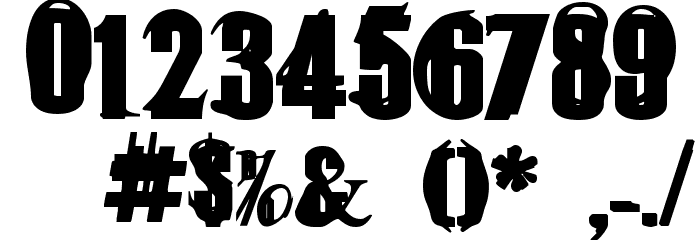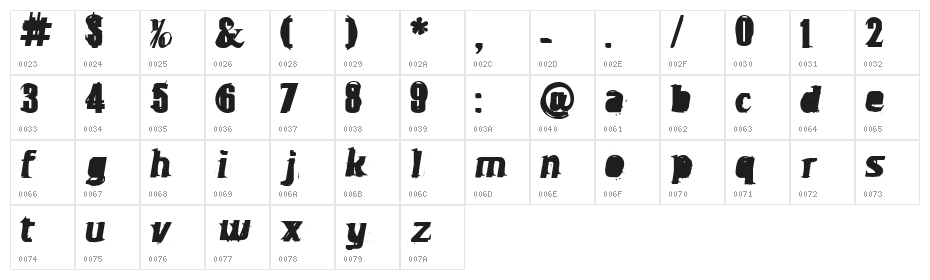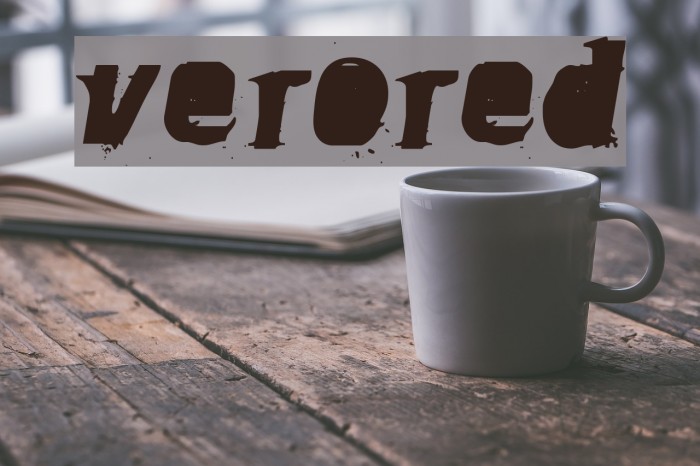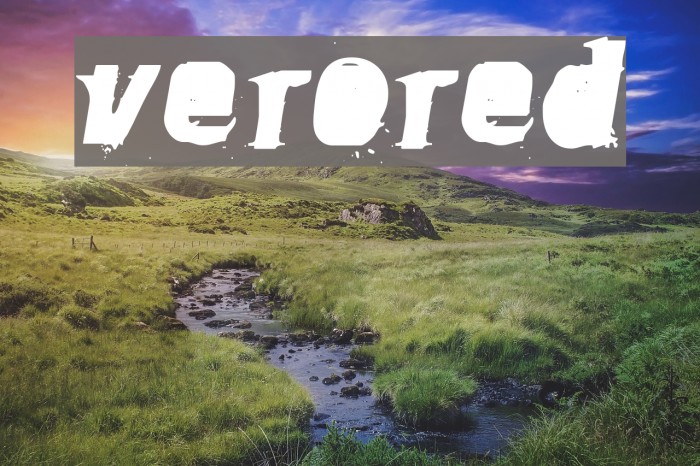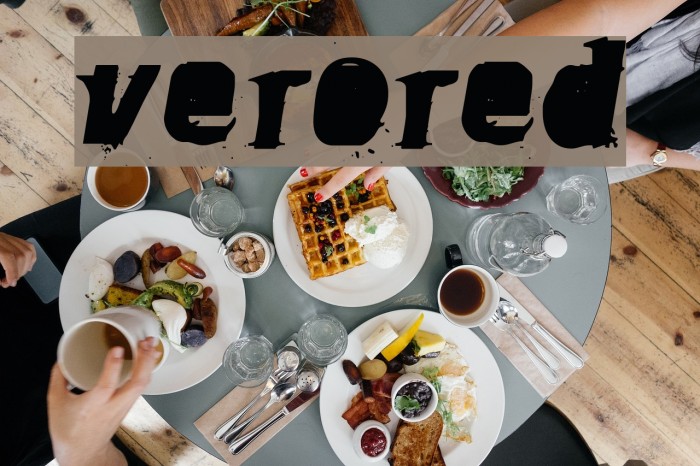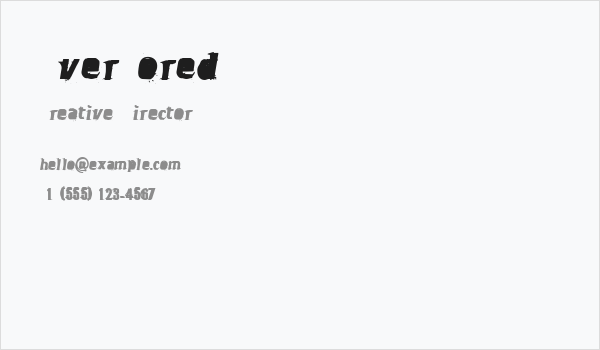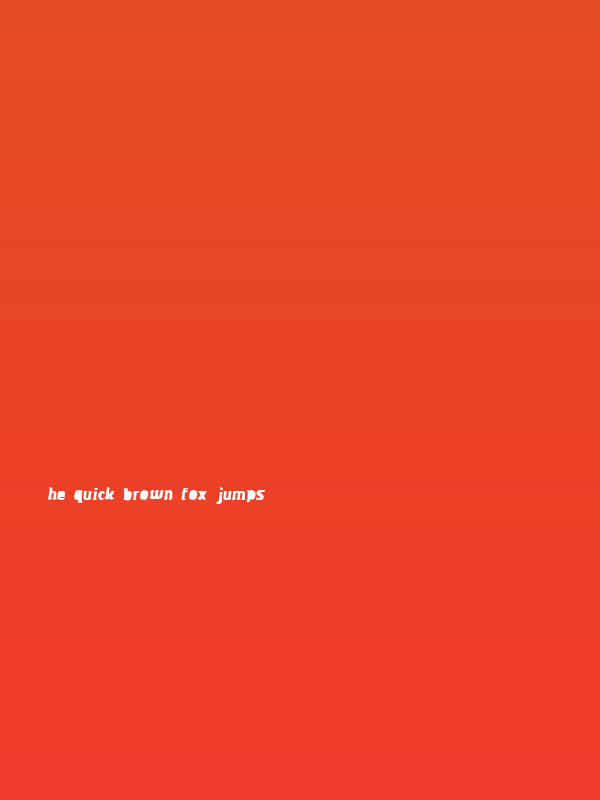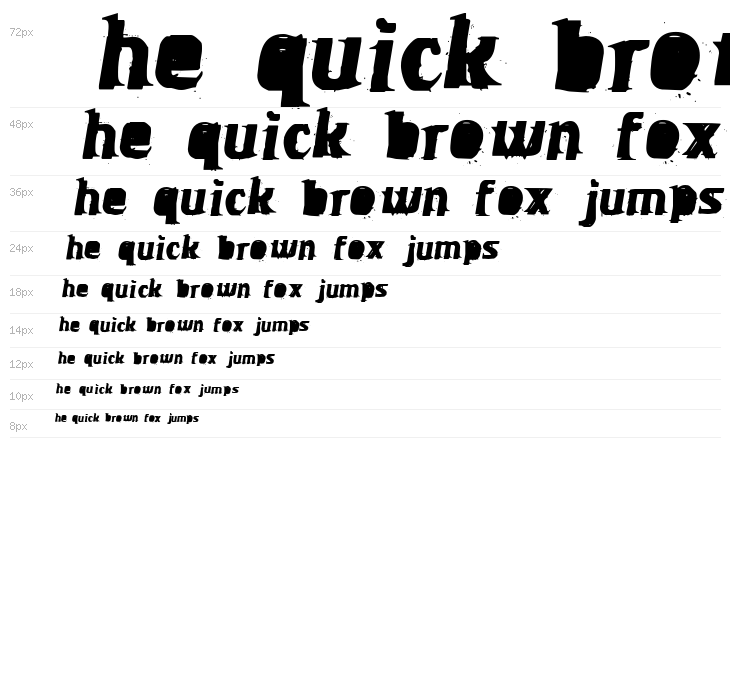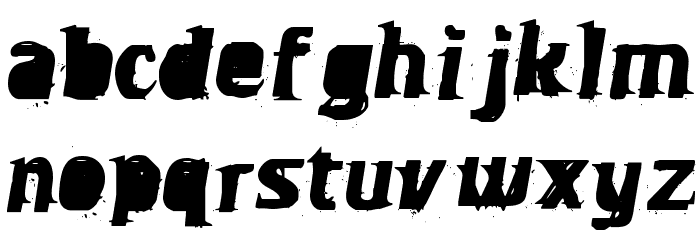
OverBored Font
OverBored Description
This font features a bold and distressed style, characterized by its rough, textured edges and uneven strokes. The uppercase and lowercase letters maintain a consistent boldness, giving the font a strong presence. The numbers and special characters follow the same rugged aesthetic, making them stand out with their unique, grunge-like appearance. The font's design is reminiscent of vintage or retro styles, with a modern twist that adds a sense of edginess and creativity. Its distinctive look makes it ideal for projects that require a bold statement or an artistic touch.
| Overall Style | Vintage, Decorative |
| Proposed Projects | Ideal for album covers, posters, branding for edgy or alternative products, and creative design projects. |